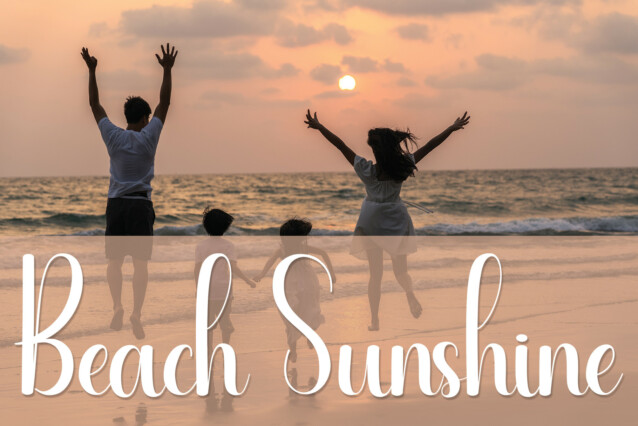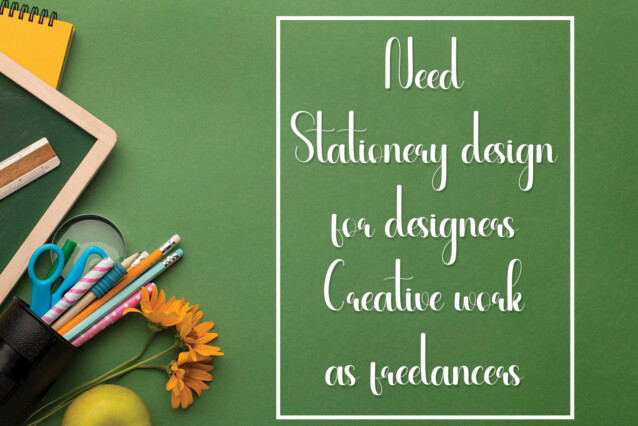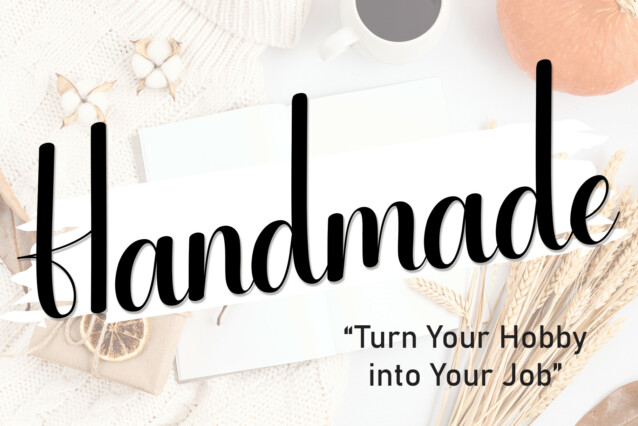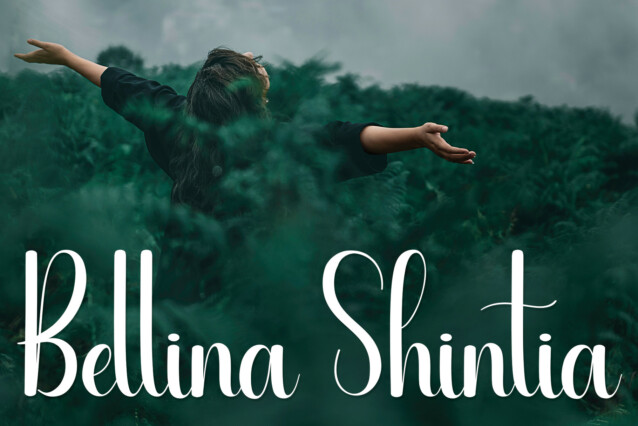
Notebook Script Typeface
Notebook Script Typeface is a bold and exquisite handwritten font. Stylish, graceful, and flowing, this font will definitely elevate the look of any of your beautiful creations while keeping them grounded and natural.